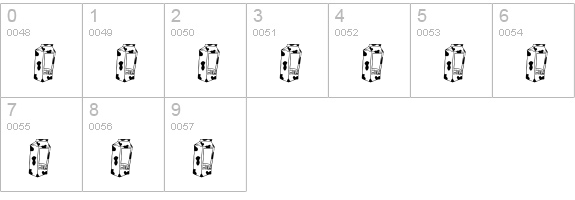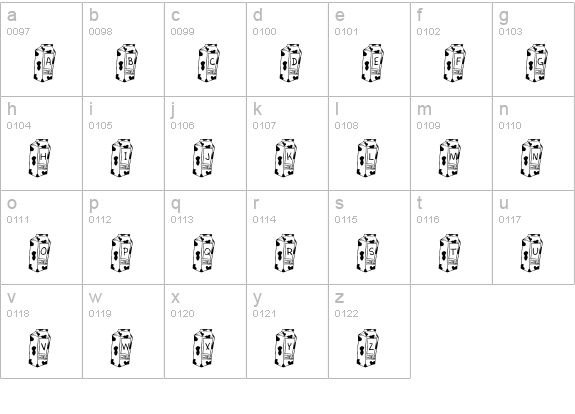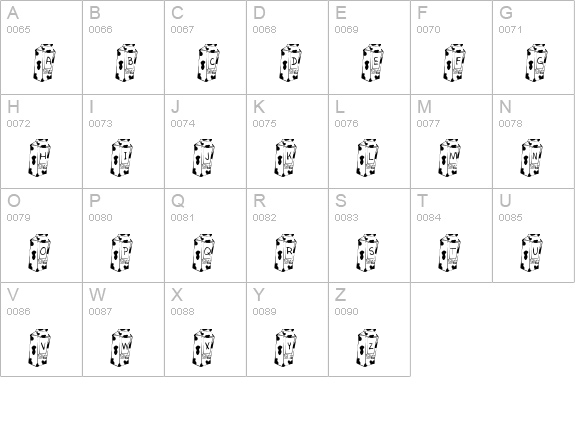
KR Cow Juice Font Details
Introducing KR Cow Juice font, a whimsical and playful typeface that will add a touch of charm to your designs. This unique font features quirky characters with a hand-drawn feel, perfect for creating eye-catching headlines, branding materials, and more. With its fun and friendly appearance, KR Cow Juice font is sure to make your projects stand out. The best part? KR Cow Juice font is completely free to download at FontsMarket.com. Simply visit the website and start using this delightful font in your projects today. Whether you're designing invitations, posters, or social media graphics, KR Cow Juice font is a versatile and creative choice that will bring a smile to your audience's face. Don't miss out on the opportunity to add this charming font to your collection for free!